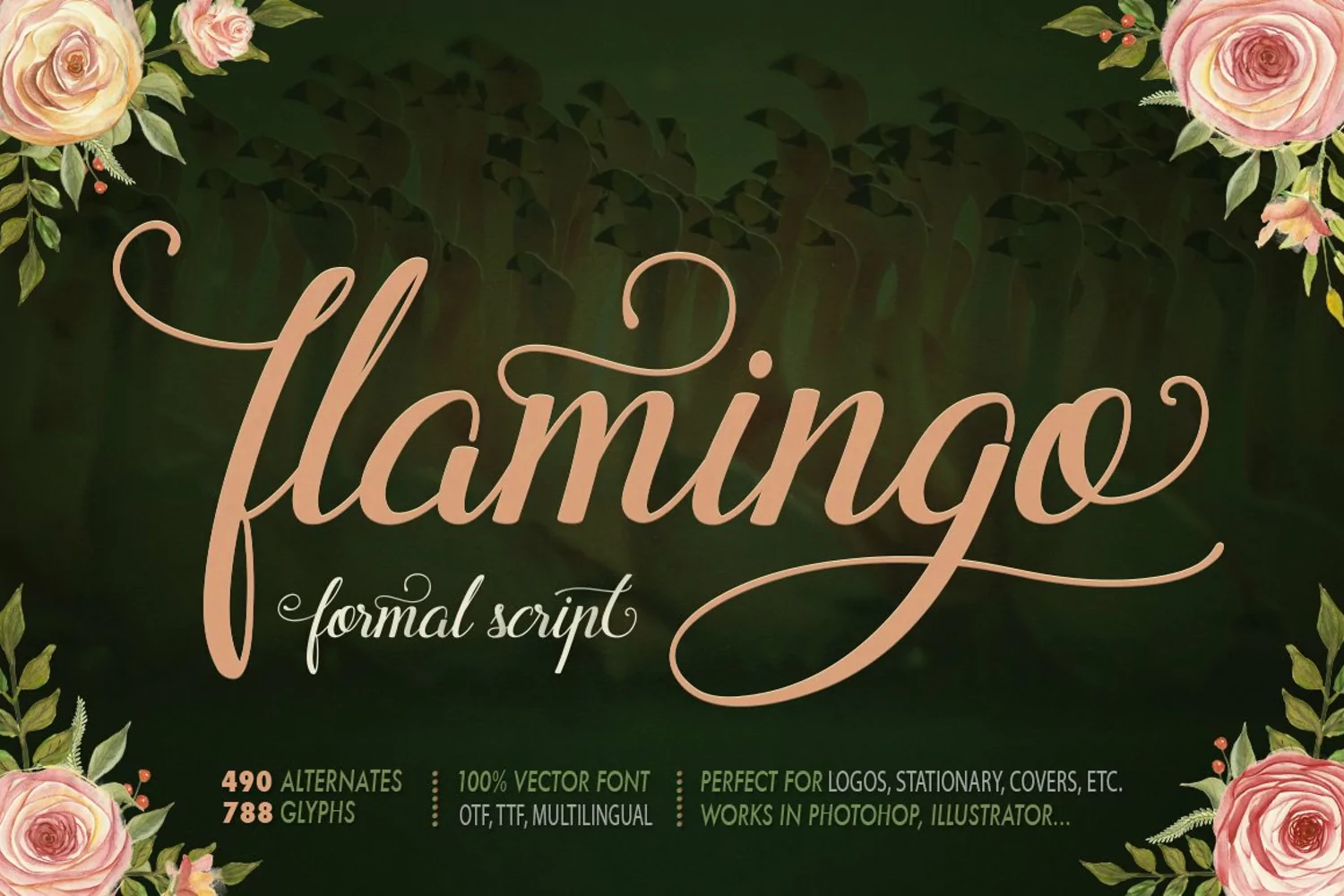
Flamingo - formal script
Flamingo is handwritten modern script calligraphy font with numerous alternates. Now it is opentype! It is smart and it is working in Photoshop*! You are welcome to use it for various purposes: logo, wedding invitation, headings, signatures, t-shirt, letterhead, signage, labels, posters etc.
Flamingo supports:
• Contextual alternates
• Discretionary Ligatures
• Stylistic alternate
• Swash
• PUA (private use areas)
• Compatible with SILHOUETTE & CRICUT DESIGN SPACE
Photoshop users have access to 7 glyphs for each letter:
1. Contextual alternates (changes first letter)
2. Contextual alternates (changes last letter)
3. Contextual alternates + Stylistic alternates (other styles for first letter)
4. Contextual alternates + Stylistic alternates (other styles for last letter)
5. Stylistic alternate
6. Swash
7. Swash + stylistic alternate
This handwritten font is perfect for:
• logos
• prints
• quotes
• stationary
• decoration